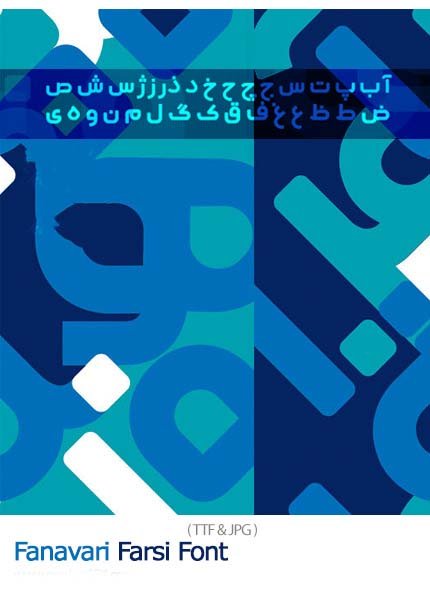
Fanavari Farsi Font
This distinctive Persian font brings a contemporary, technological edge to Farsi typography. With its clean lines, geometric precision, and modern character, it’s ideally suited for projects that need to convey innovation, digital sophistication, and forward-thinking design.
Design Characteristics:
• Modern, technical aesthetic with geometric precision
• Clean, sharp lines inspired by technology and digital design
• Contemporary character with professional appeal
• Bold, impactful presence for headlines and displays
• Excellent visibility at large and small sizes
Persian (Farsi) Script:
• Complete Persian character set
• Full support for Persian-specific letters (گ، چ، پ، ژ)
• Proper character connections and positioning
• Consistent technical styling across all letters
• Maintains readability with distinctive character
• Tracts & Brochures: Modern, tech-inspired printed materials
• Banners: Bold, attention-grabbing displays
• Billboards: High-impact outdoor advertising
• Logos: Contemporary brand identities for tech companies
• Website Headers: Modern digital typography
• Product Packaging: Tech product labeling
• App Interfaces: Clean, modern UI typography
• Corporate Communications: Forward-thinking business materials
• Event Signage: Modern conference and tech event displays
• Modern Aesthetic: Contemporary design with technological edge
• High Impact: Bold, visible at any size
• Versatile Application: Perfect for print and digital media
• Professional Quality: High-caliber font for commercial use
• Tech-Ready: Ideal for innovation-focused projects
Key Features of This Farsi Technology Font:
• Modern, technical Persian design with geometric precision
• Complete Persian character set
• Bold, impactful presence
• Perfect for tracts, banners, billboards, and logos
• Tech company branding specialists
• Billboard and outdoor advertising designers
• Print designers for modern publications
• Logo and identity creators
• Web and app designers
• Anyone needing contemporary, tech-inspired Persian typography